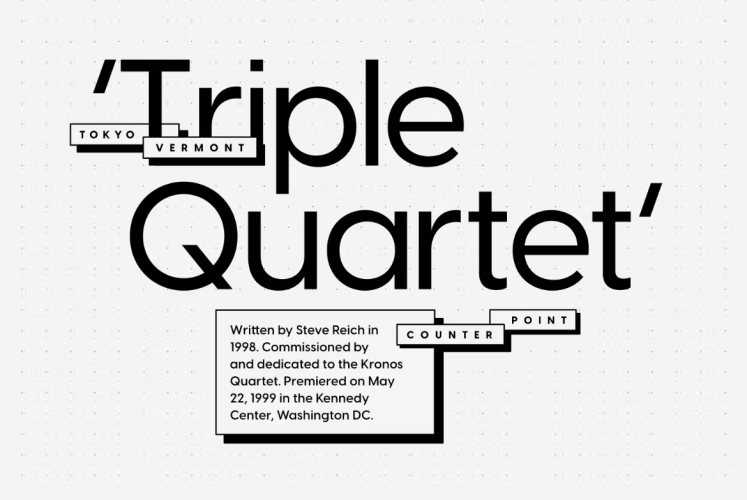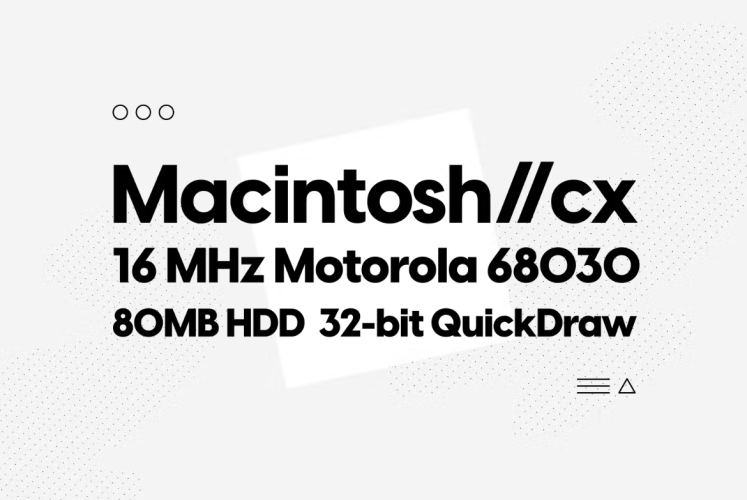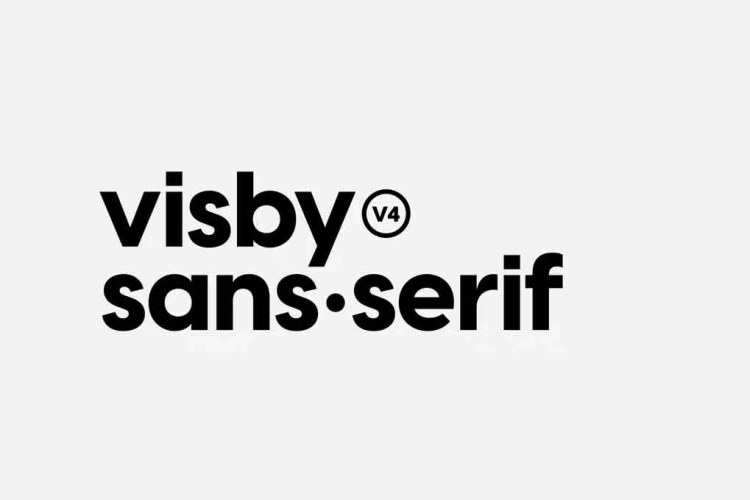
Visby CF Font
Visby is a geometric typeface inspired by the stark beauty and crisp air of the Arctic. Friendly and charismatic in lowercase; sophisticated and authoritative in upperca…
Visby is a geometric typeface inspired by the stark beauty and crisp air of the Arctic. Friendly and charismatic in lowercase; sophisticated and authoritative in uppercase. Hard lines and sharp corners mesh with smooth, rounded letterforms, while humanist nuances add a little warmth.
Where Visby CF Font works best
Visby CF Font keeps its shape at 14 and 16 pixels, which is where interface text actually lives. Numbers and capitals stay distinguishable in tables.
Presentations are read at a distance; a clean sans with a strong bold is the safest hierarchy you can build in a hurry.
Simple letterforms survive angles, glare and movement, so Visby CF Font suits door signs, menus boards and exhibition panels.
What kind of work does Visby CF Font suit?
It sits in the Sans Serif Fonts group and reads as clean, elegant, friendly, geometric. That makes it a candidate wherever those qualities help: headings, packaging, social graphics and brand work. Set it at the size you plan to use before deciding.